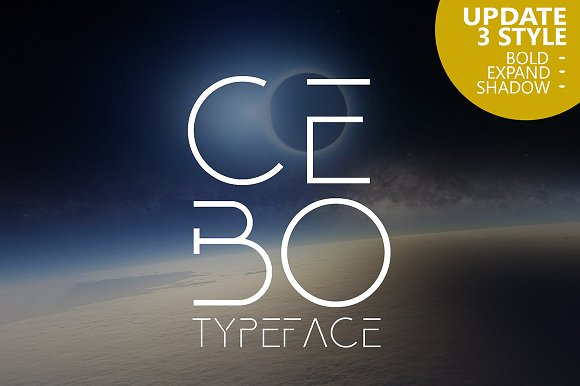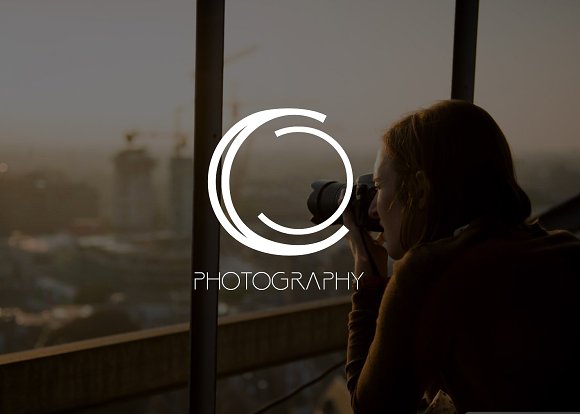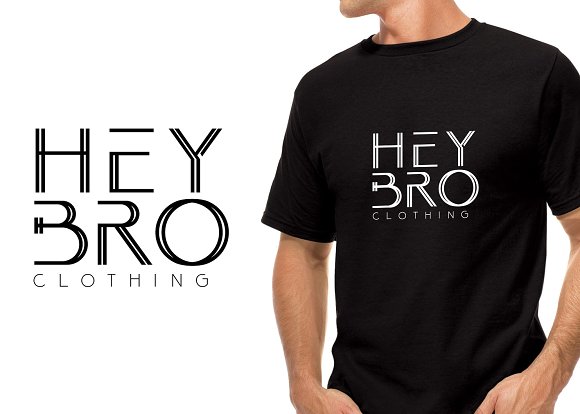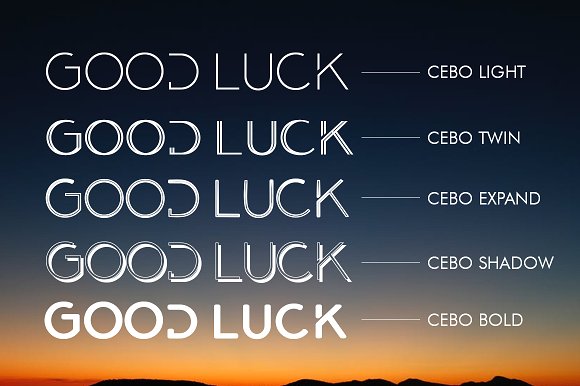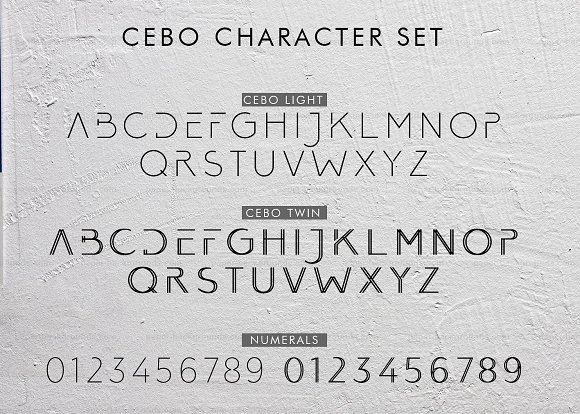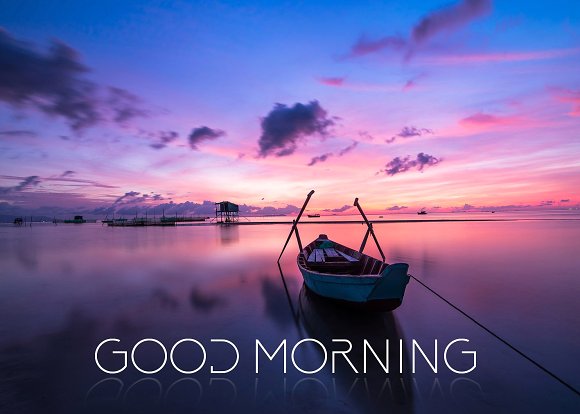
Cebo (5 Font)
Cebo a minimalis typeface and awesome character with 5 different style, Cebo light, Cebo twin, Cebo shadow, Cebo expand and Cebo bold. Cebo it’s perfect for namecard, poster, logo, magazine, cover, banner, tshirt and headers, or even large-scale artwork.